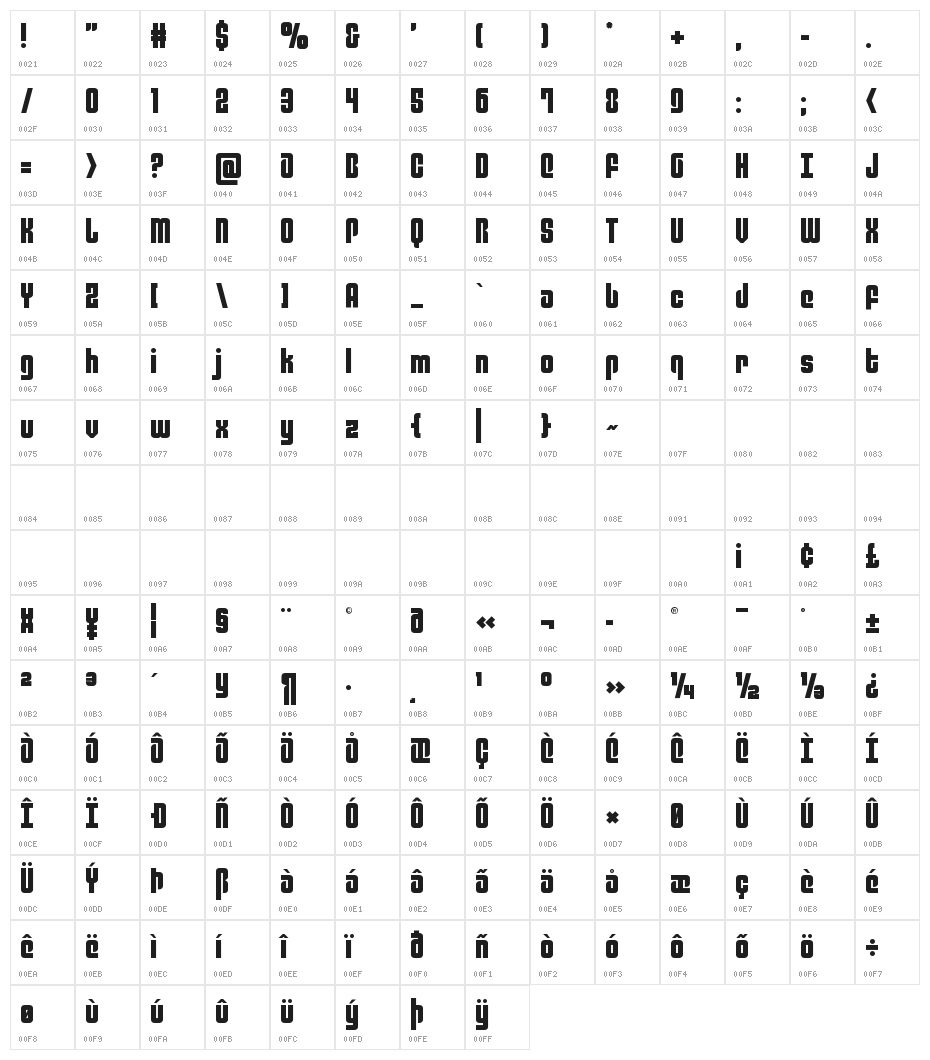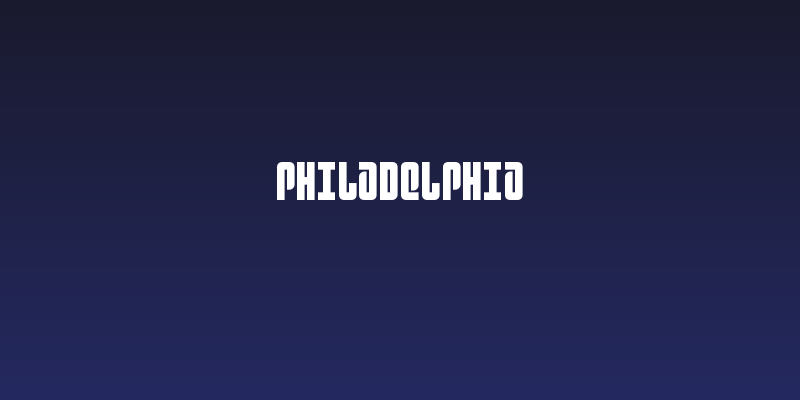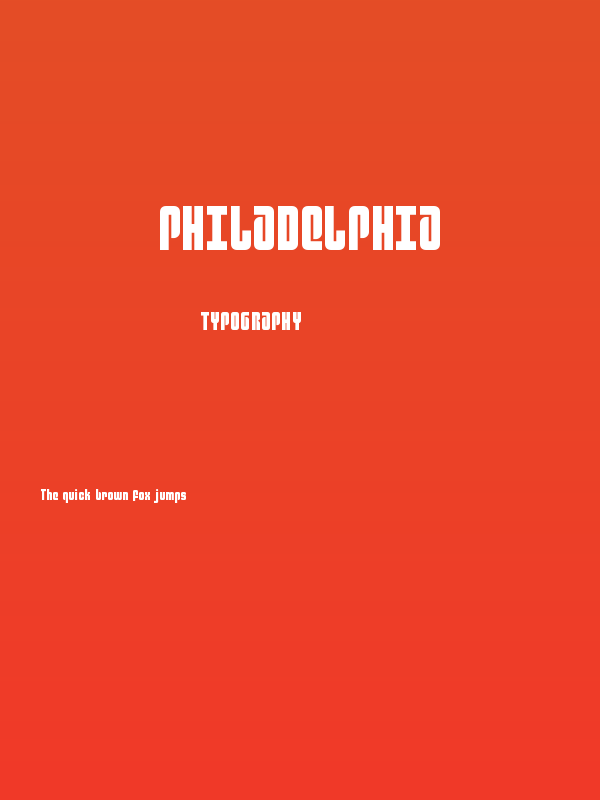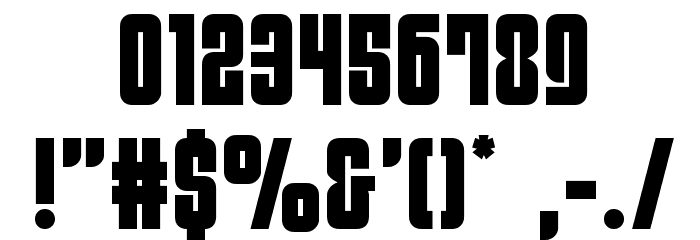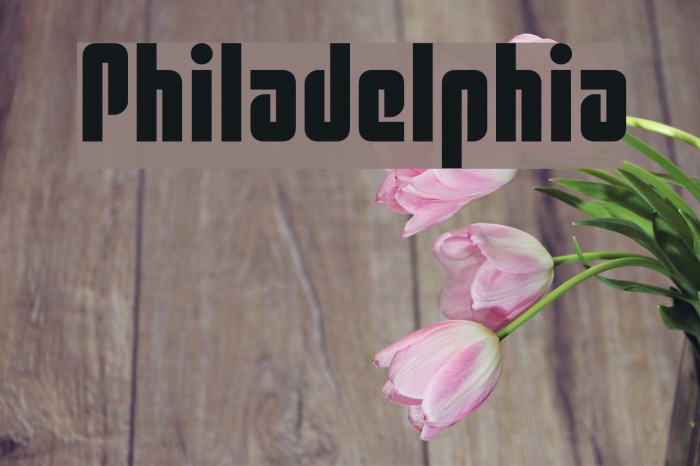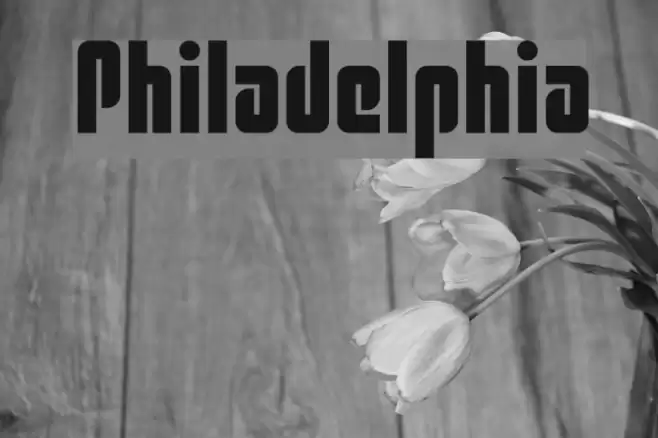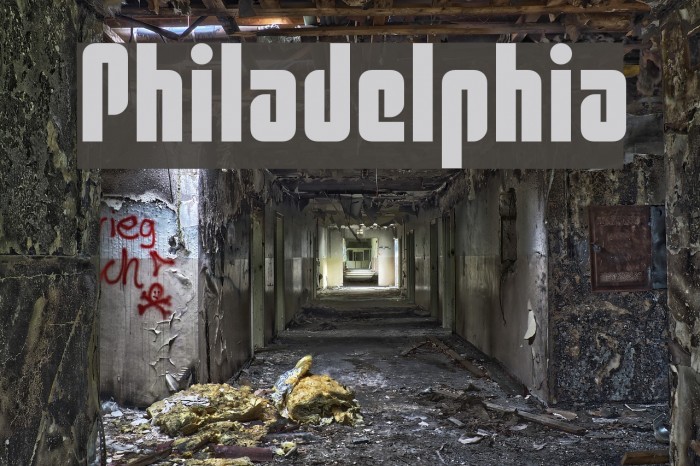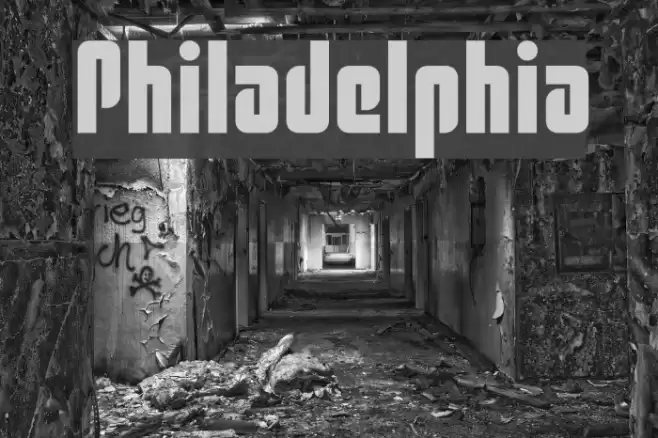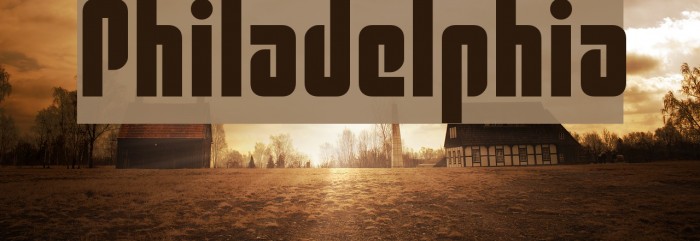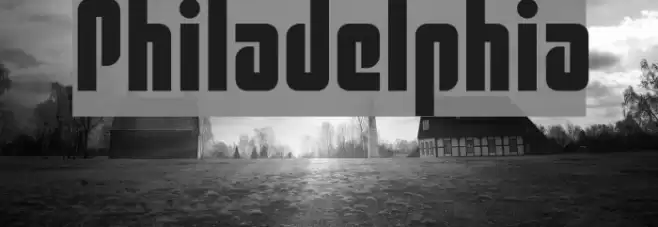
Philadelphia Font
Philadelphia Description
This font features a bold and impactful design with strong geometric shapes and a modern aesthetic. The characters are uniformly wide, creating a sense of stability and strength. The uppercase letters are particularly striking, with a blocky appearance that commands attention. The lowercase letters maintain the same boldness, ensuring consistency across text. Numbers and special characters are designed to match the overall style, making them easily readable and visually cohesive. This font is ideal for projects that require a strong visual presence.
| Proposed Projects | Ideal for posters, headlines, branding, and any design that requires a strong, modern aesthetic. |